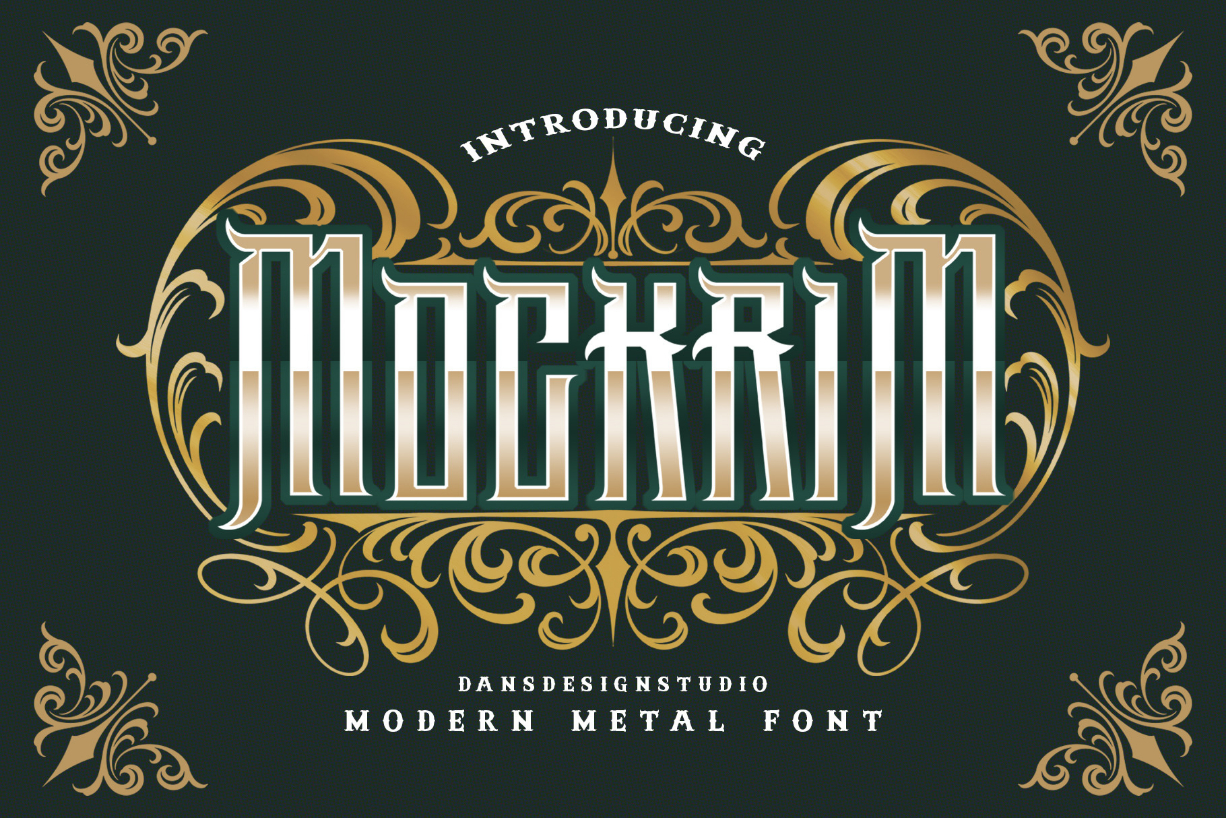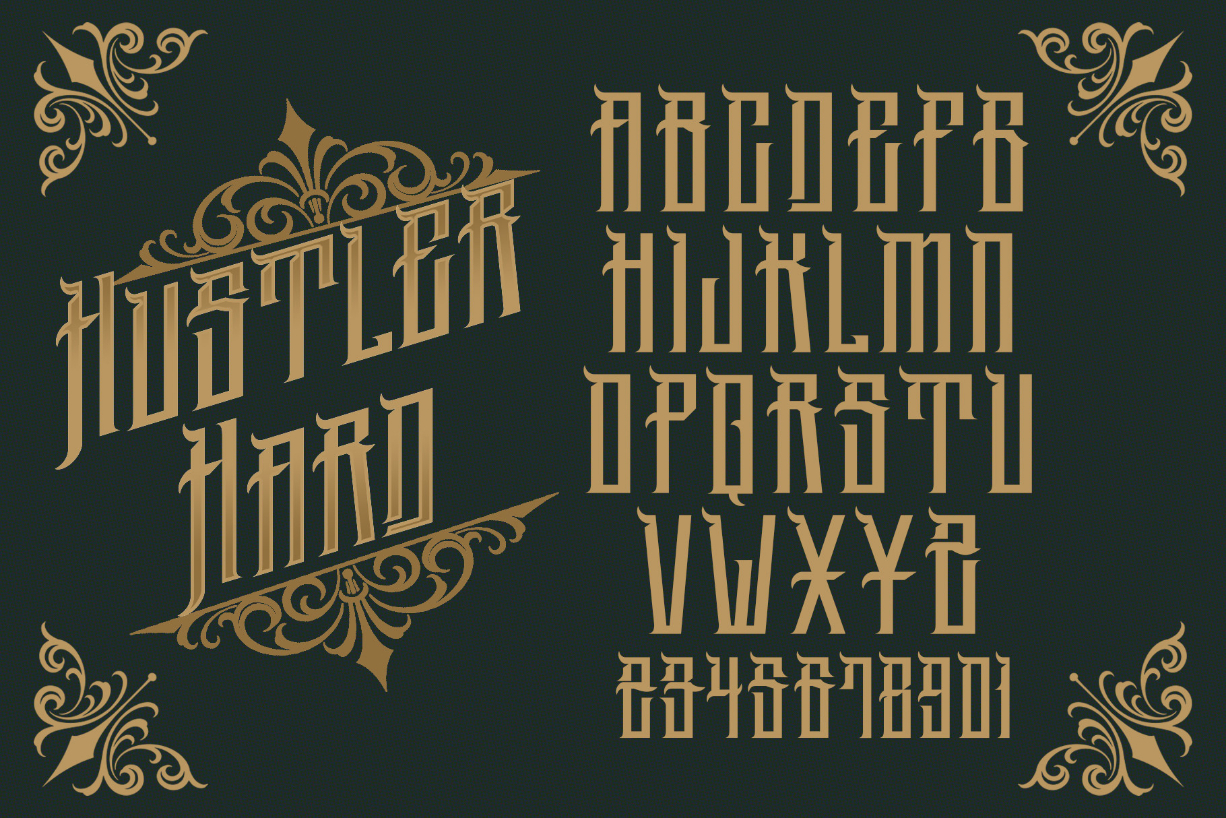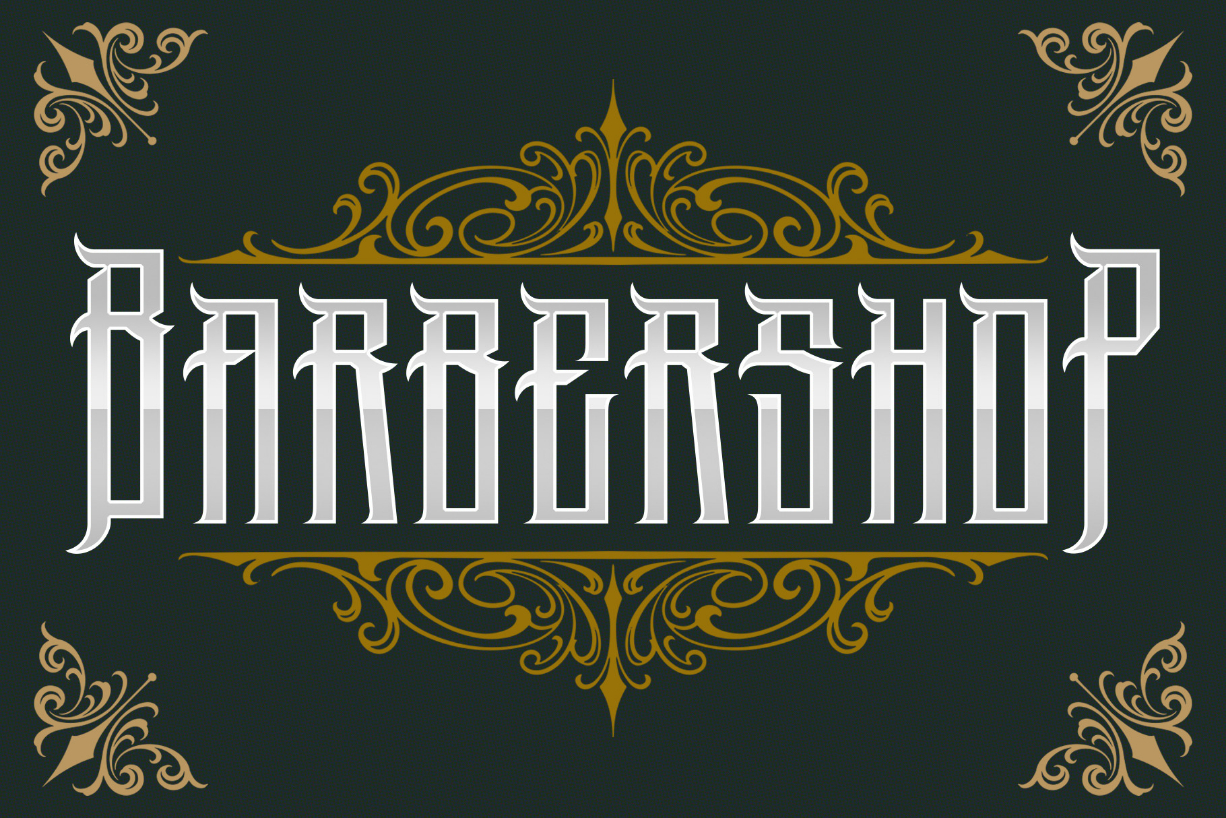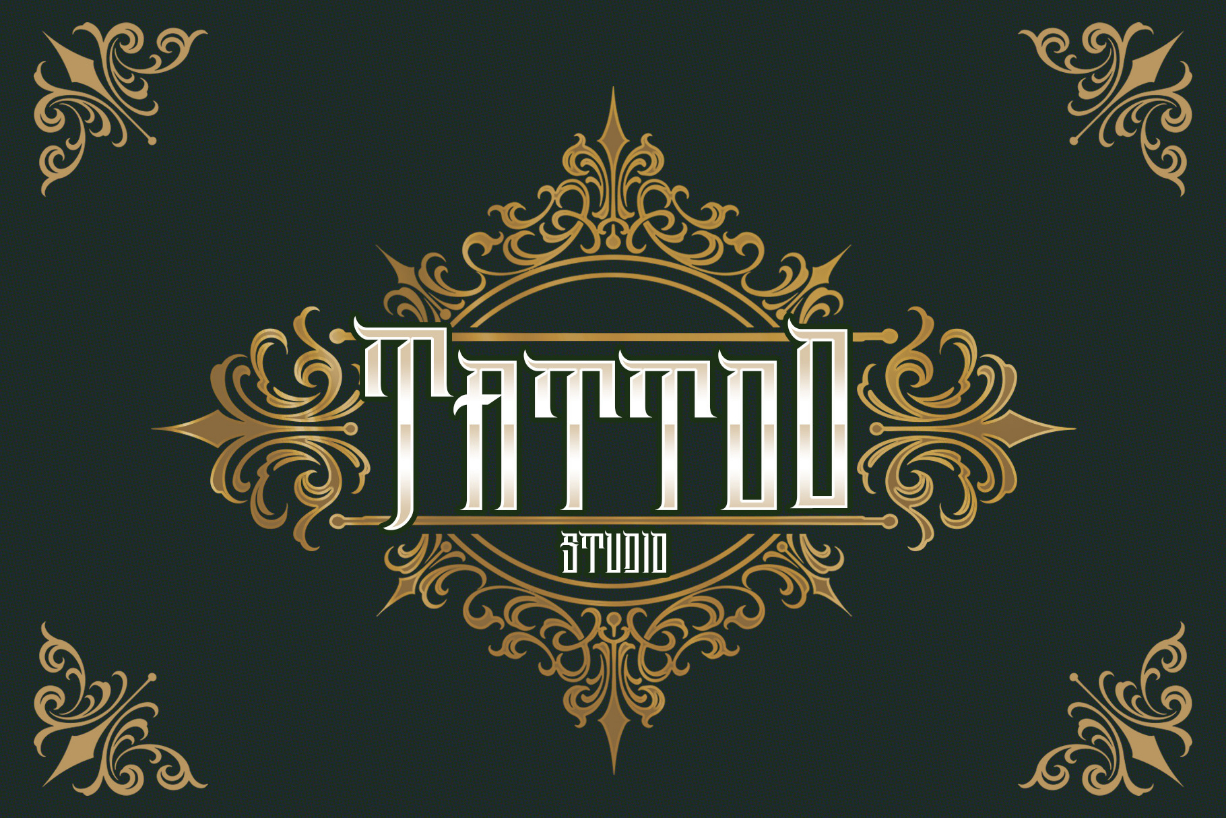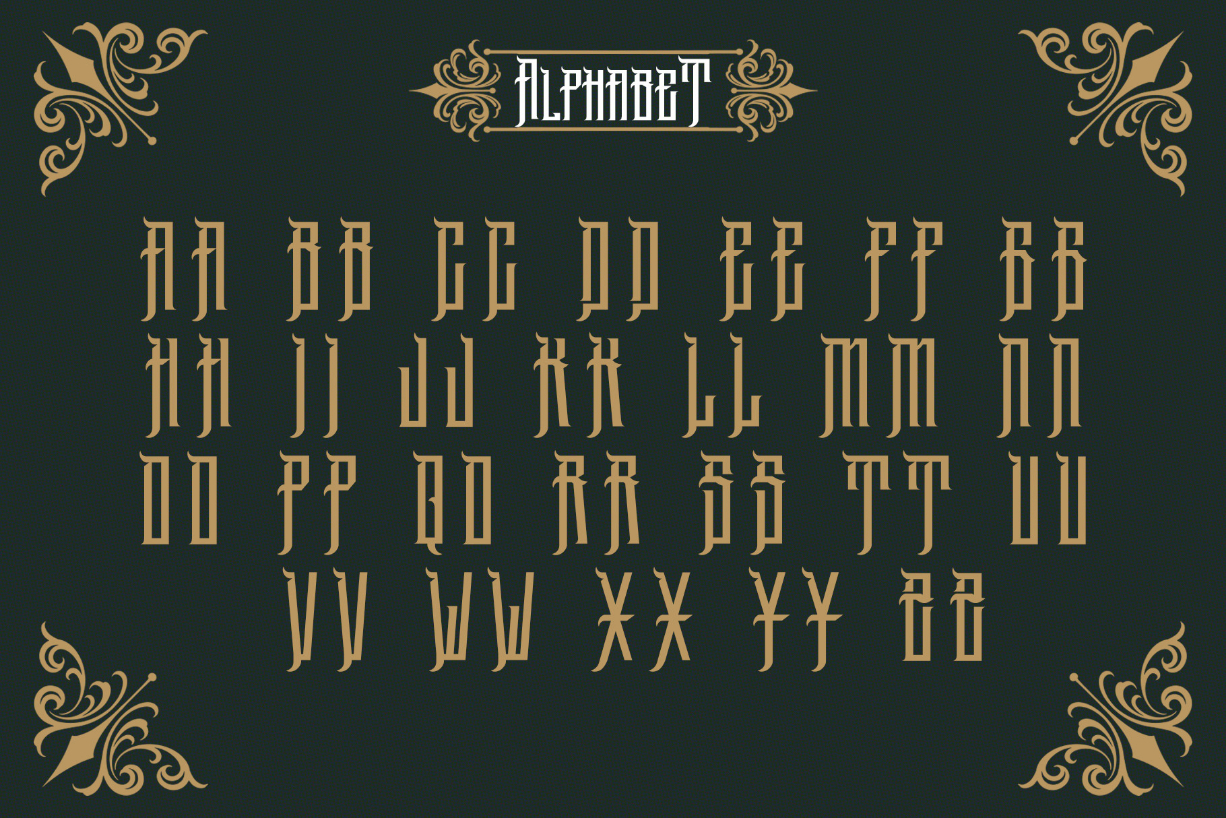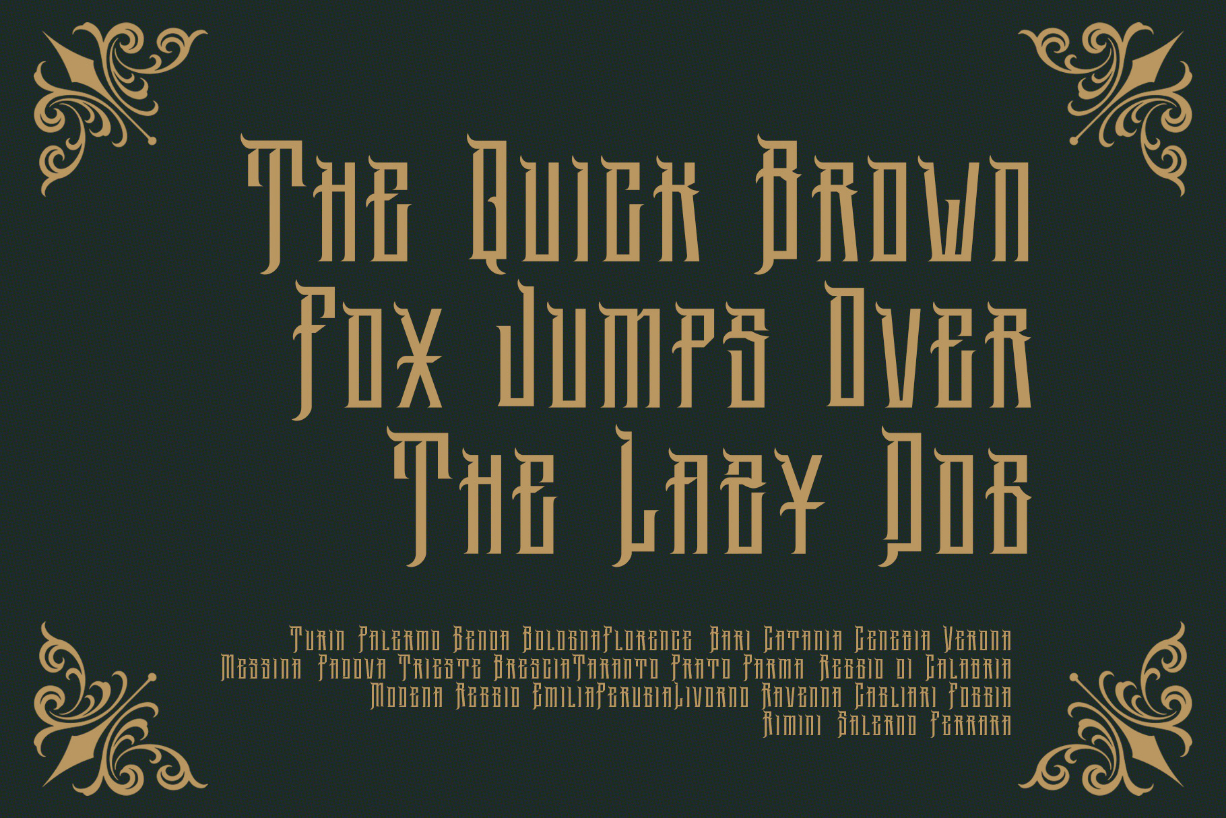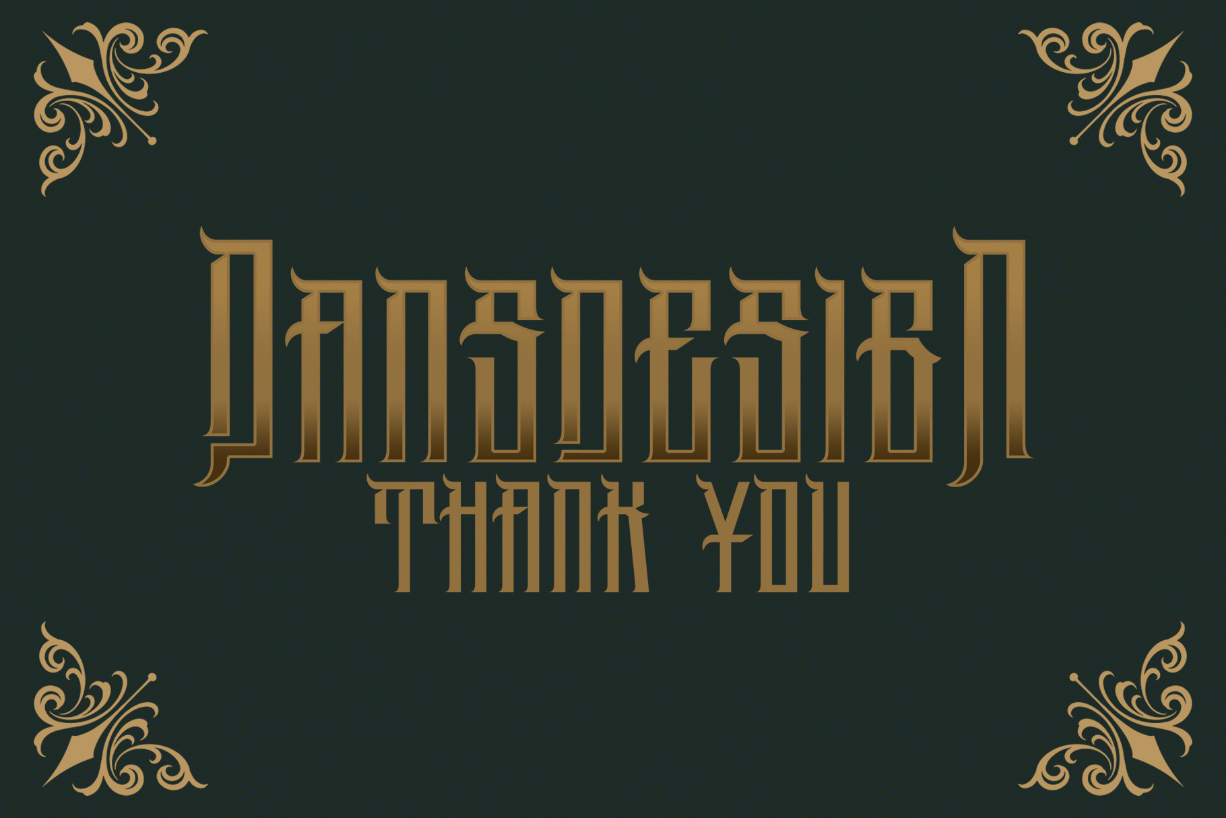
Mockrim Font
About Mockrim Font
Mockrim is a distinct, highly detailed, and chic blackletter font. It would make an excellent choice for exquisite retro-urban designs, tattoo business branding, logos, vintage designs, and more.